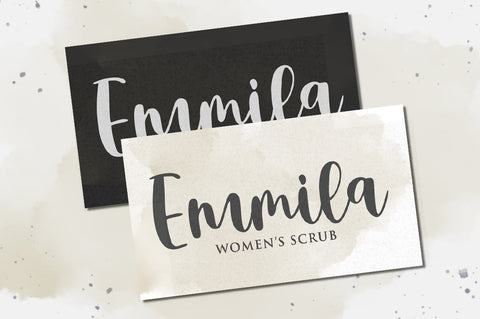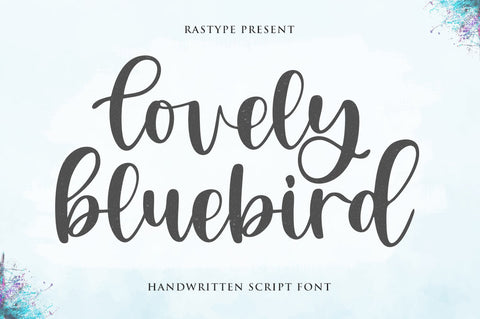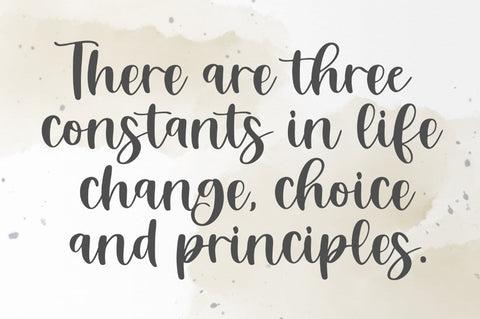
Lovely Bluebird | Handwritten Font
Lovely Bluebird are beautiful and romantic writing fonts. Looks amazing on wedding invitations, thank you cards, quotes, greeting cards, logos, business cards and any other design.
This font is PUA encoded which means you can access all glyphs and swashes with ease!
The font includes OpenType features with alternative styles, ligatures, and multiple language support.